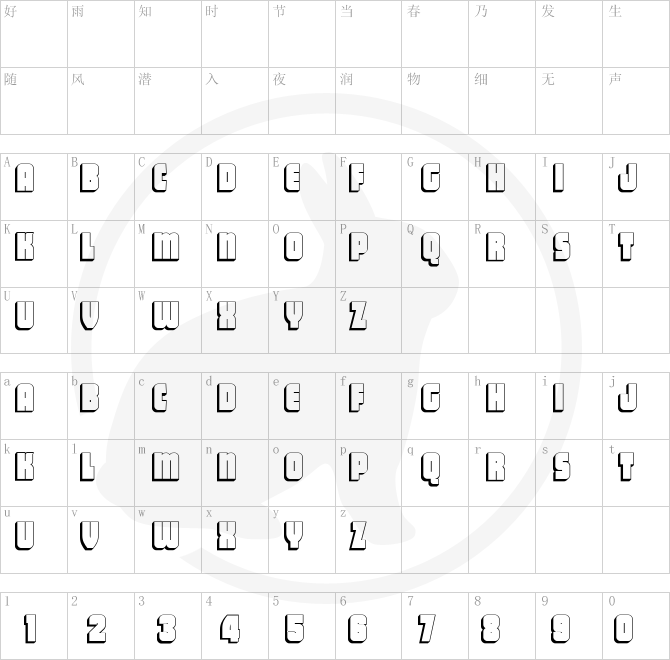
- Font Name:Vacation Postcard NF
Vacation-Postcard-NF.ttf is a very beautiful artistic font, Vacation-Postcard-NF.ttf is widely used in the design and printing of various books and pictures,Vacation-Postcard-NF.ttf has a strong visual impact,Vacation-Postcard-NF.ttf is a commonly used font in newspapers, magazines and books, and is used in posters, e-commerce Poster design, store design, logo design, font design and other fields.Vacation-Postcard-NF.